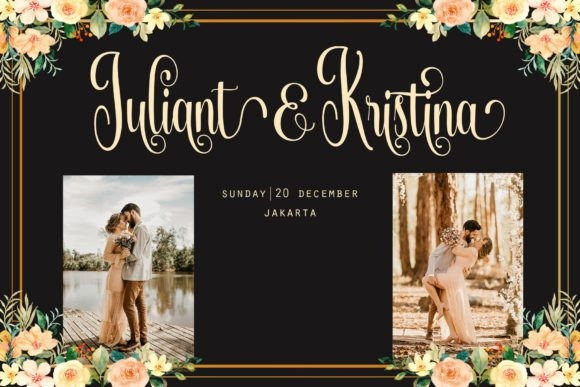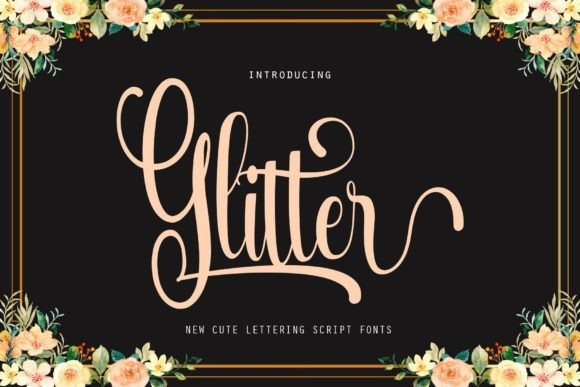
Glitter Font
Glitter Script Font is an amazing script typeface created in freestyle for those who do work and crafts.
It’s perfect for various purposes such as logos, wedding invitations, headings, t-shirts, letterheads, signage, labels, news, posters, badges, etc.
This font is PUA encoded, which means you can access all of the glyphs and swashes with ease!